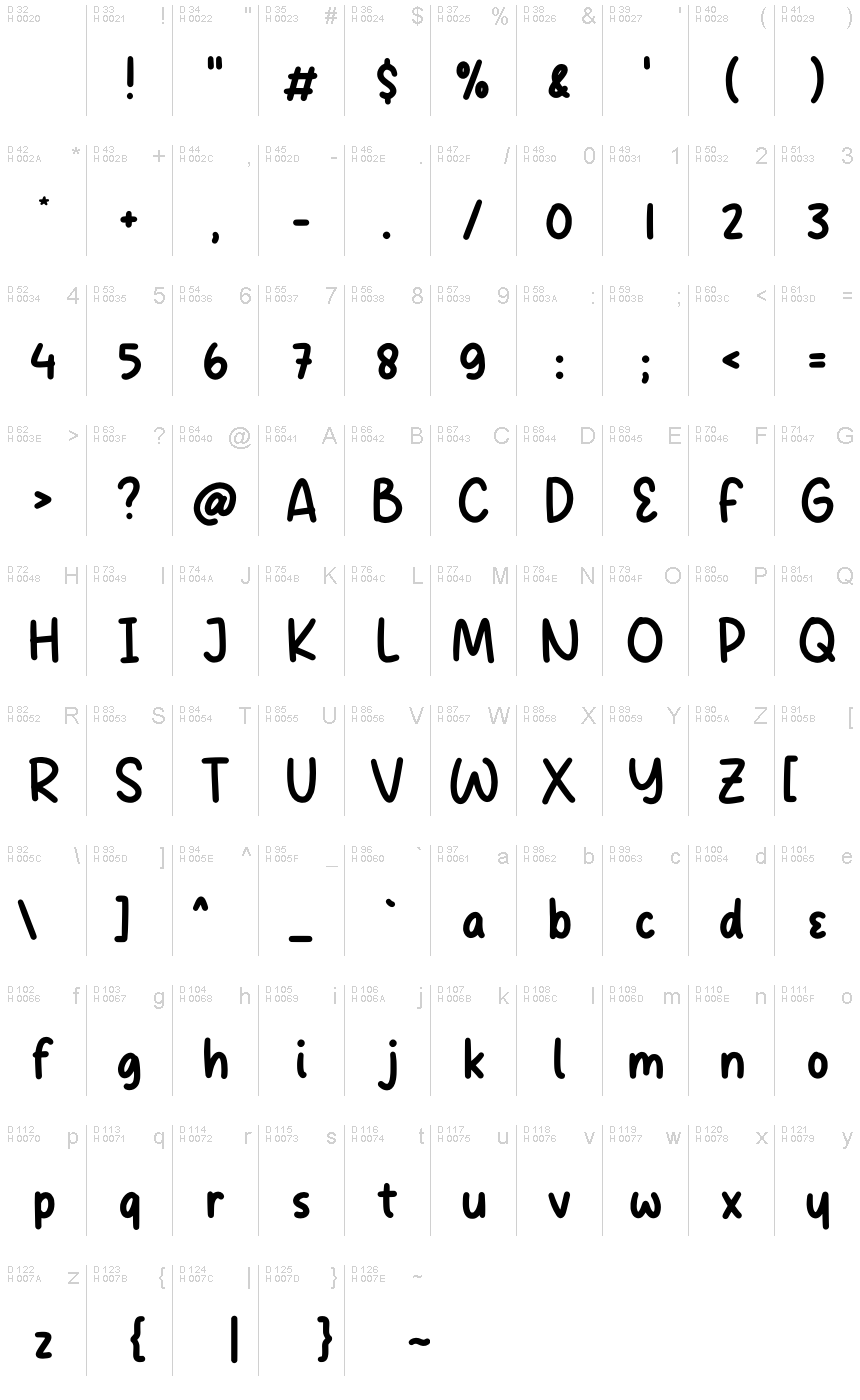
Gabyrose
Gabyrose font by Allouse Studio is a playful handwritten typeface with bold, rounded edges that exudes an informal, friendly mood. Its casual style and low contrast make it perfect for projects that require a relaxed and approachable tone. This font captures the essence of natural handwriting, making any text feel personal and inviting.
Ideal use cases for Gabyrose include greeting cards, children's books, personal blogs, social media graphics, DIY crafts, posters emphasizing warmth or fun, educational materials aimed at young audiences, and personalized stationery. Its versatility makes it a fantastic choice for adding a touch of whimsy to any project.